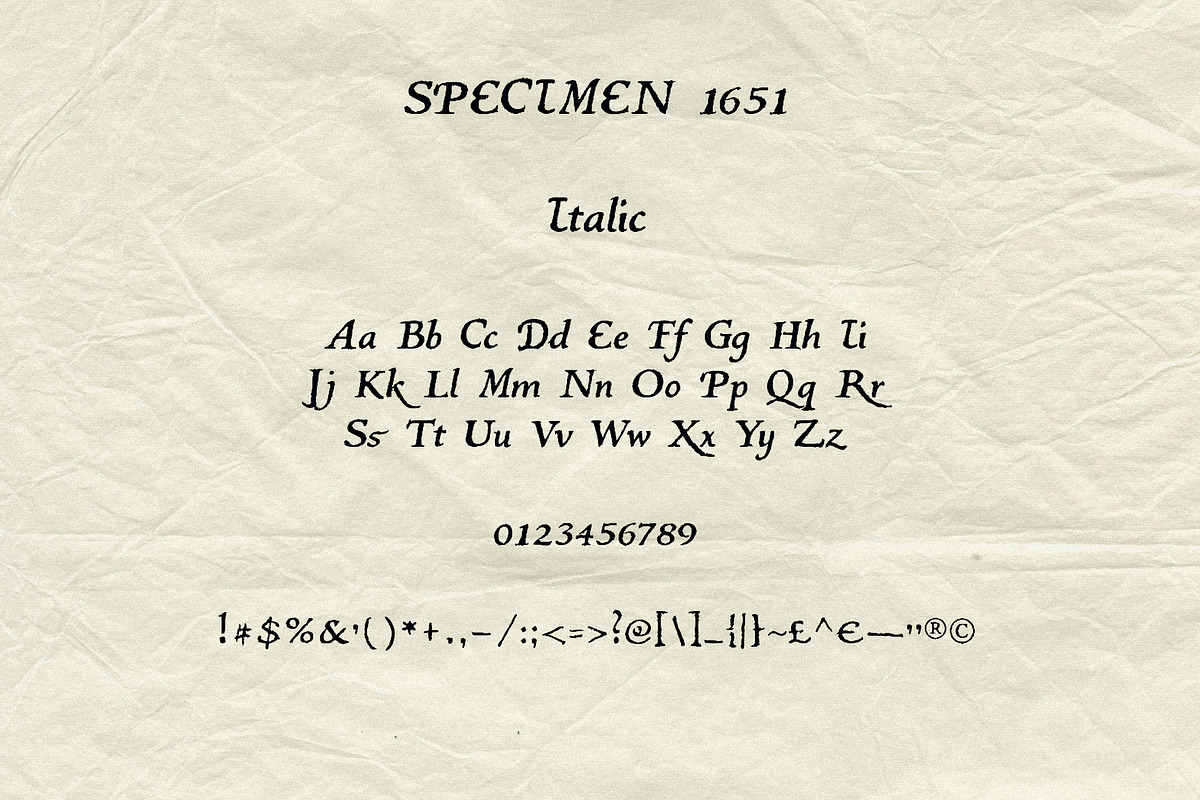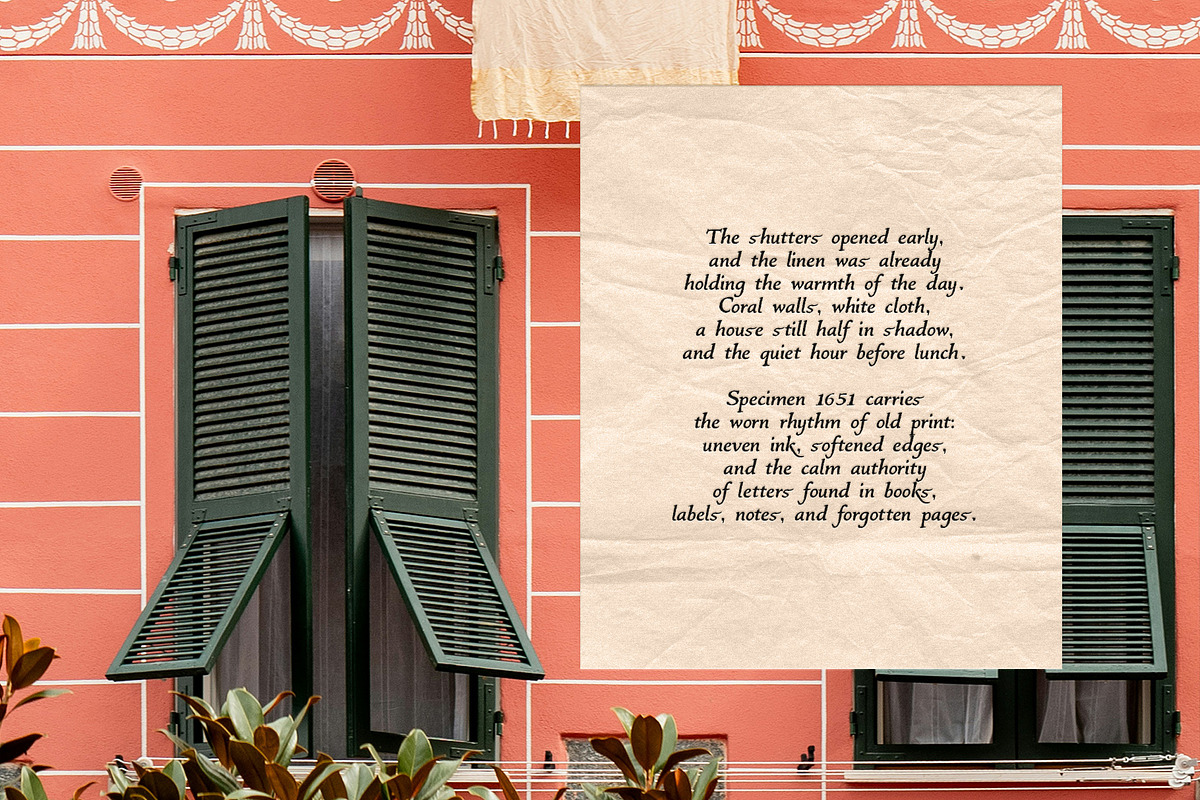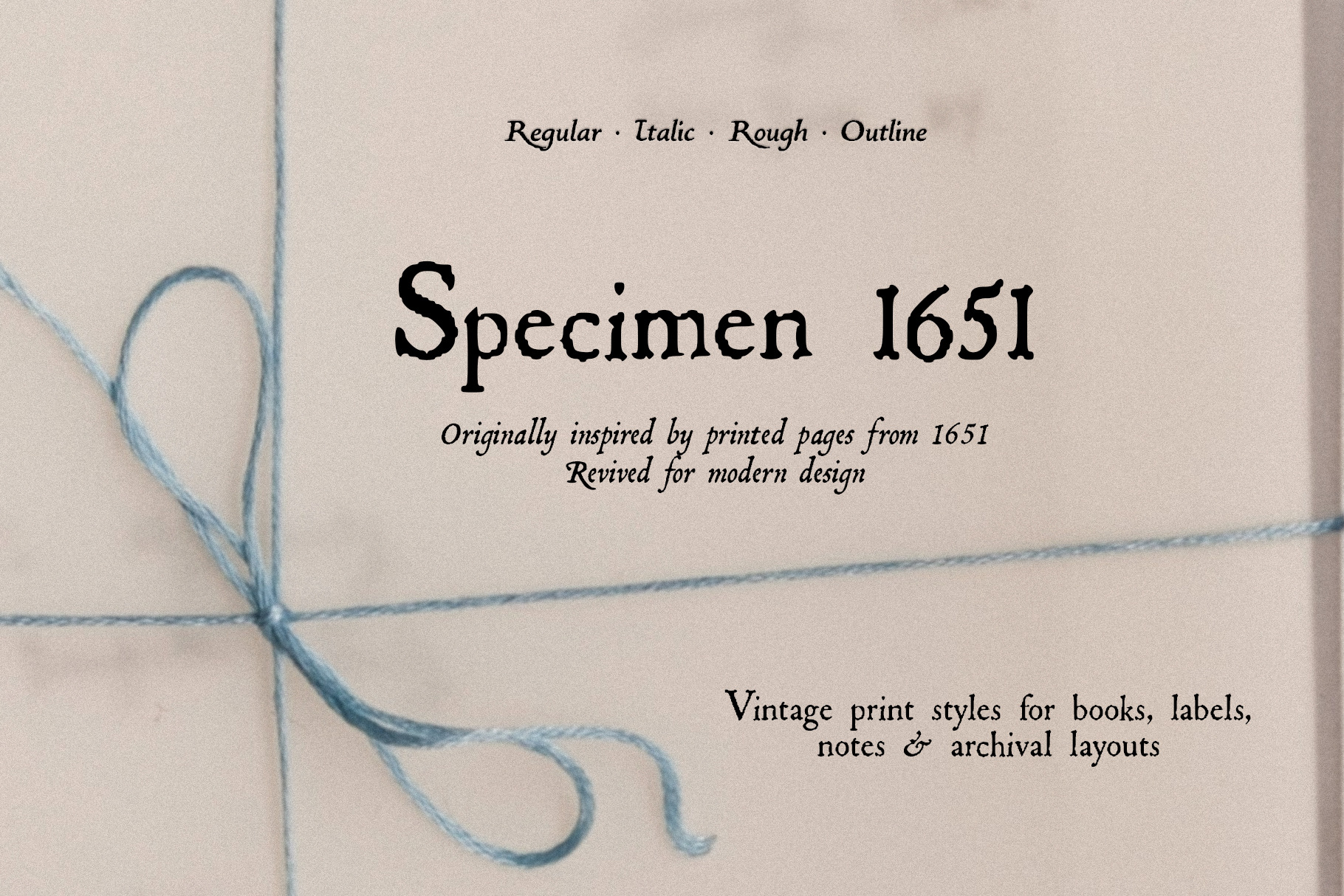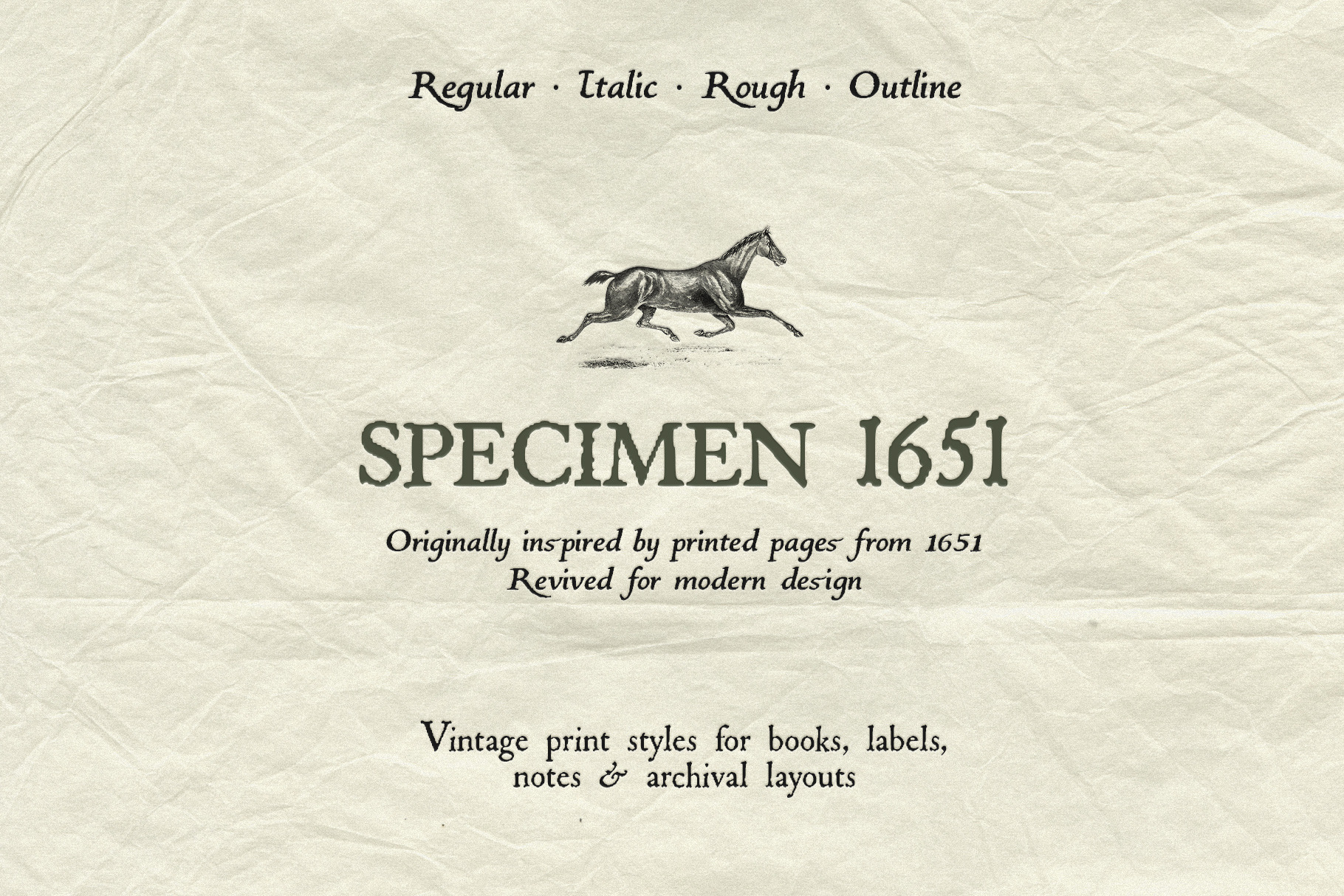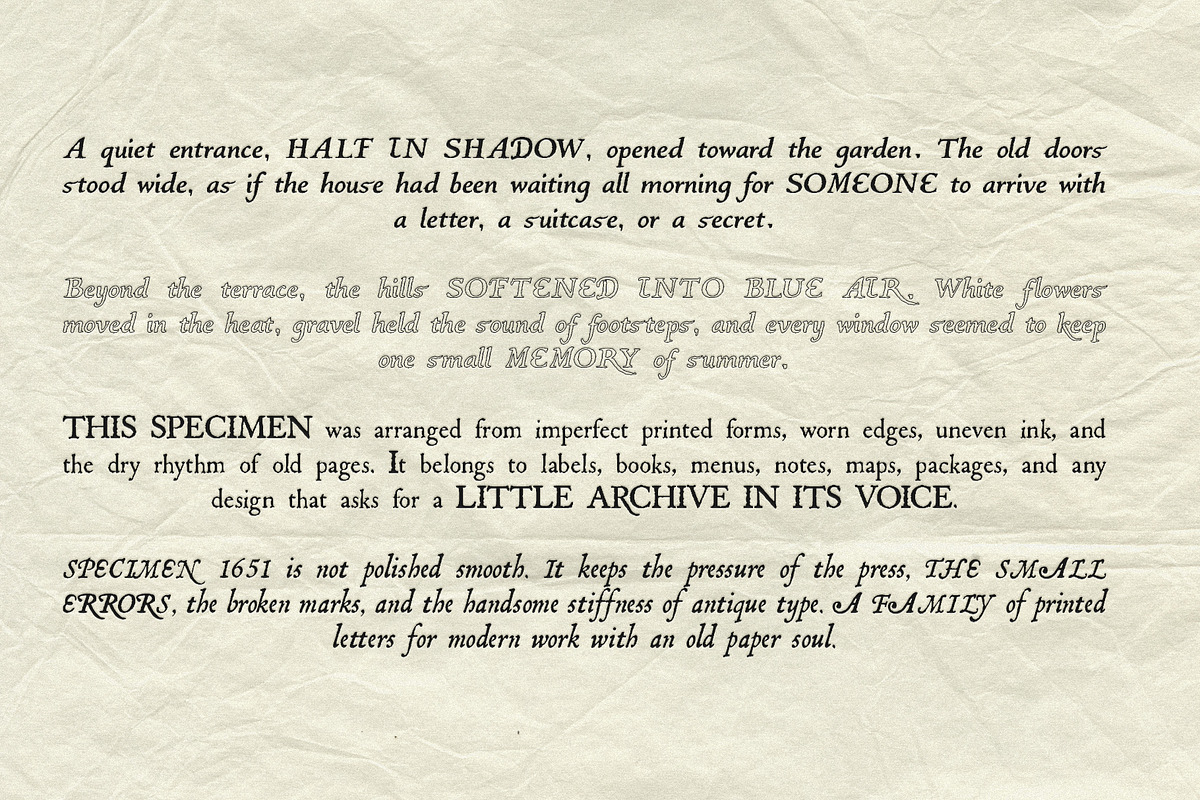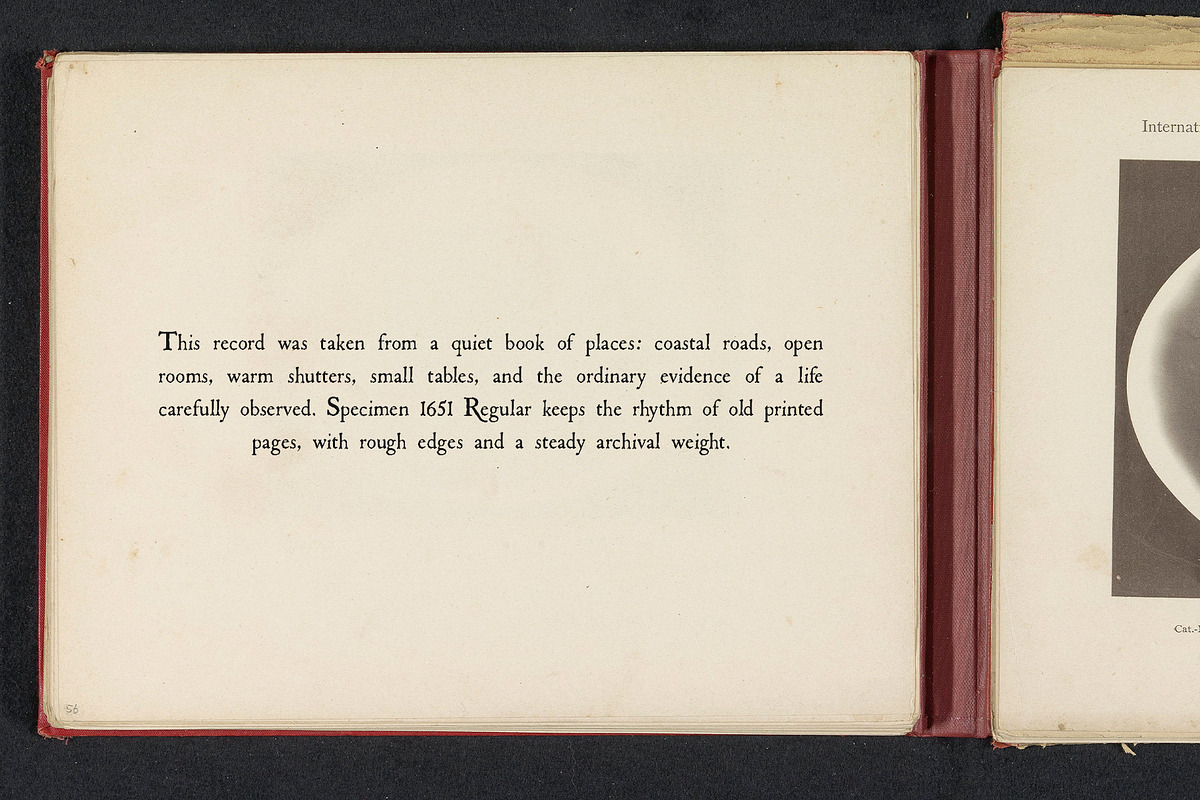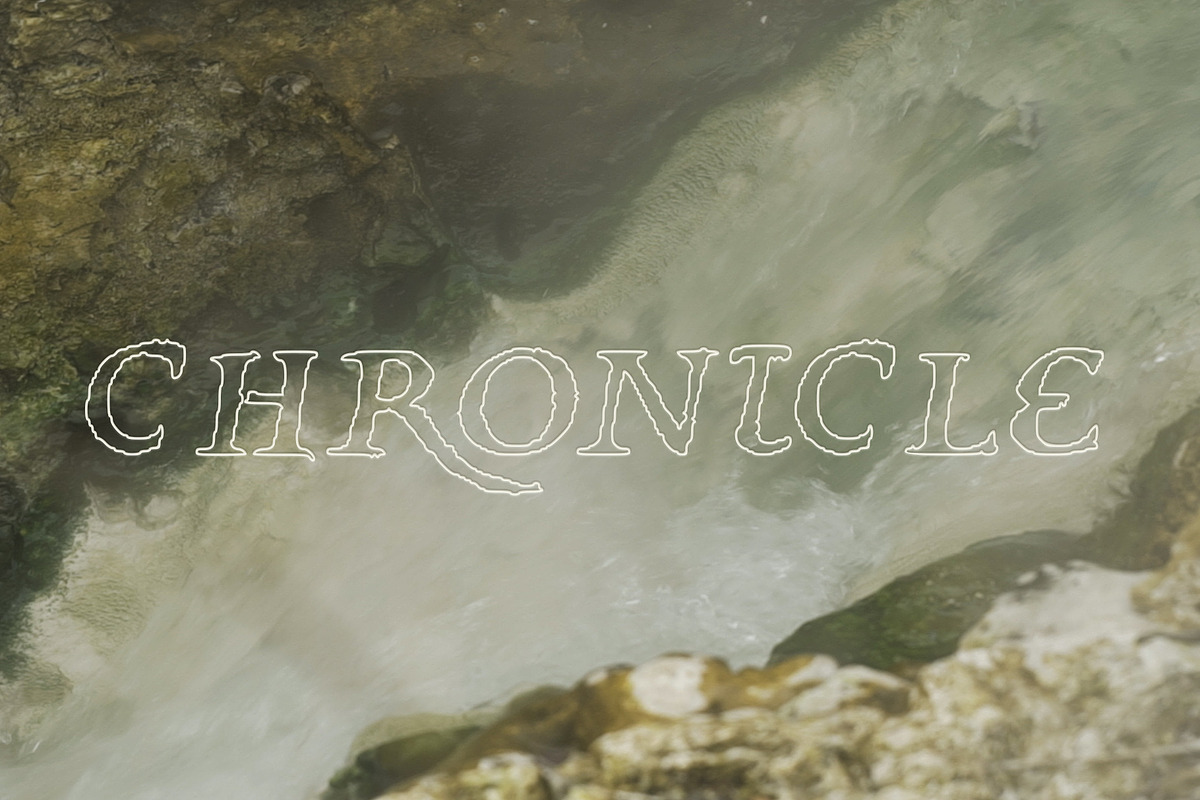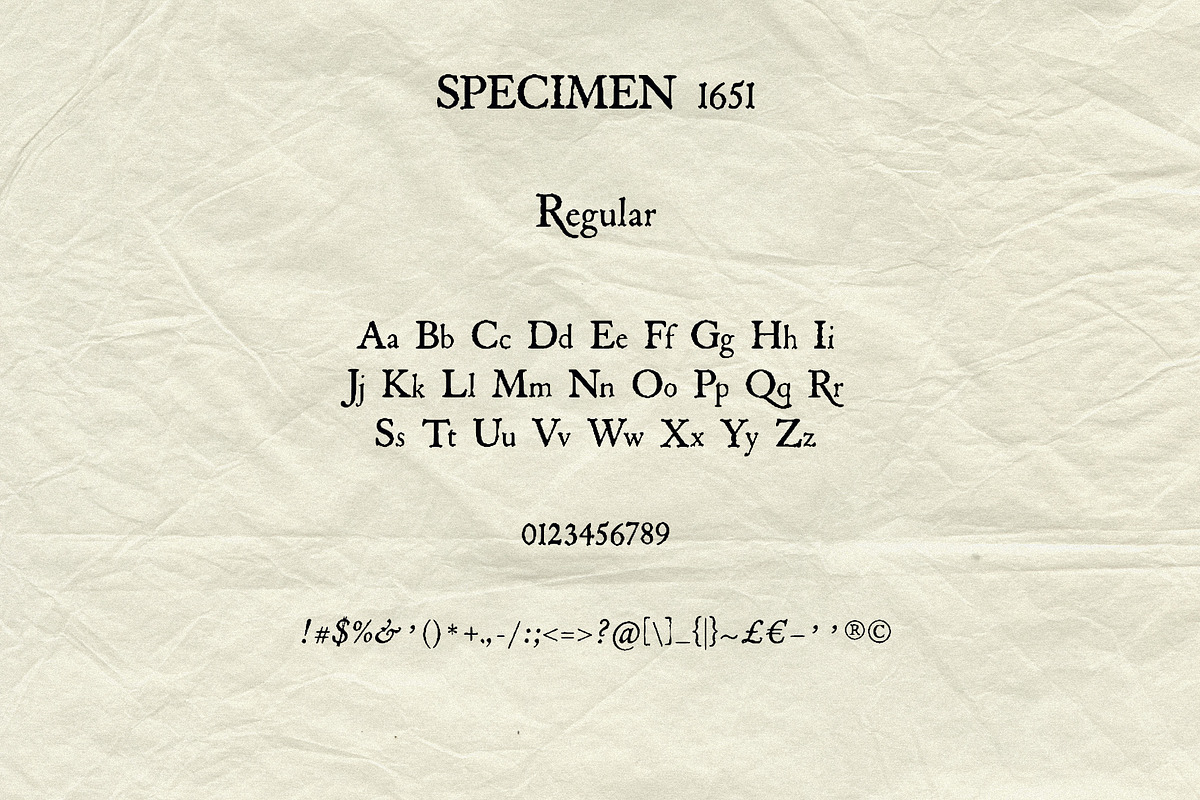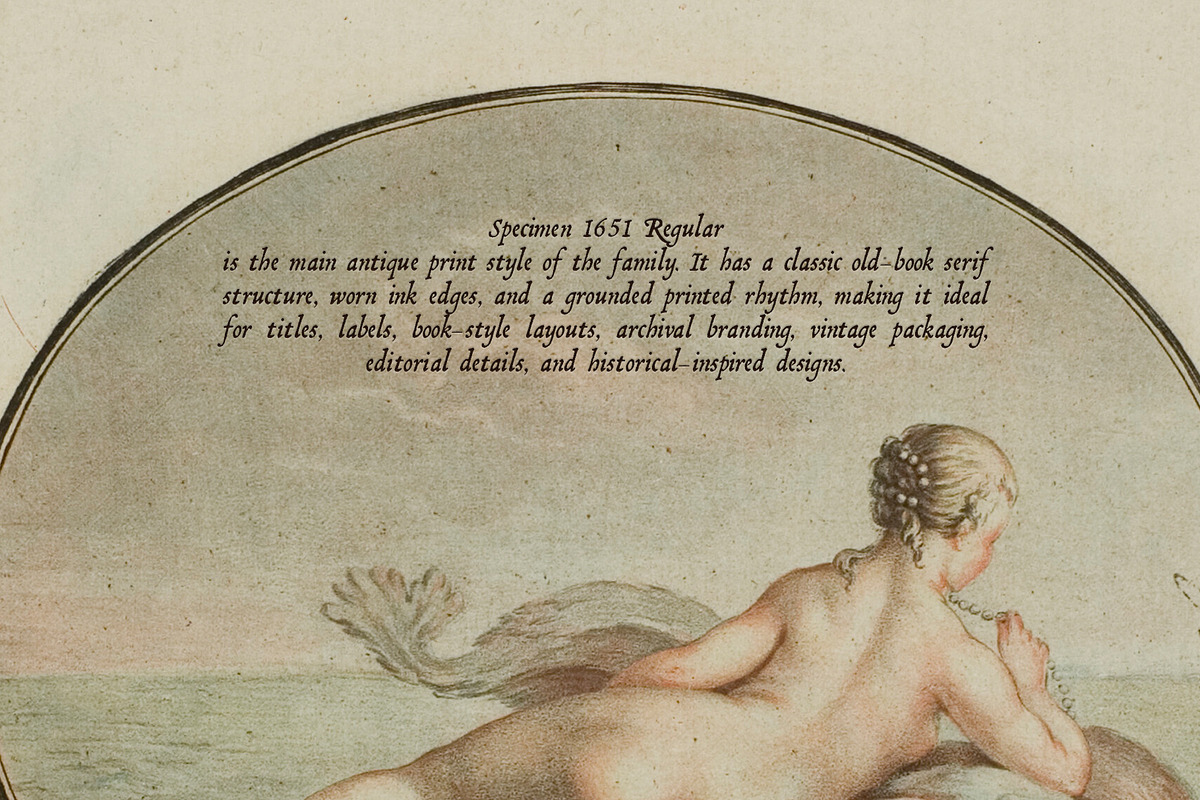
Specimen 1651: Vintage Font Family
Specimen 1651 is a vintage print font family inspired by old book pages.
The family includes four styles: Regular, Italic, Rough, and Outline. Each one keeps a different part of the old press character: rough ink edges, imperfect weight, softened details, irregular texture, and letterforms that feel pulled from an archive rather than polished into something sterile.
Regular is the main printed serif style, made for titles, labels, book-inspired layouts, packaging, editorial details, and archival branding. Italic brings a more literary, slanted rhythm for captions, quotes, notes, and secondary text. Rough has a darker, more distressed press texture for designs that need stronger ink and historical grit. Outline gives the family a lighter decorative option for headings, specimen layouts, layered typography, and old-style display details.
This is not a perfectly smooth digital serif. It keeps the pressure of the press, the small breaks, the uneven edges, and the slightly damaged charm of archival typography, revived for contemporary layouts.